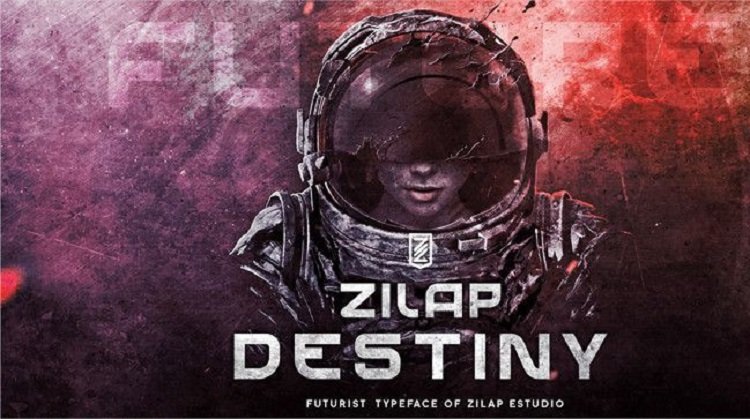
Zilap Destiny Font
PERSONAL USE /// Zilap Destiny – It’s a typographic project full of personality, perfect for
Futuristic and modern uses.
It is a versatile typeface that adapts to the needs.
Graphics of each job.